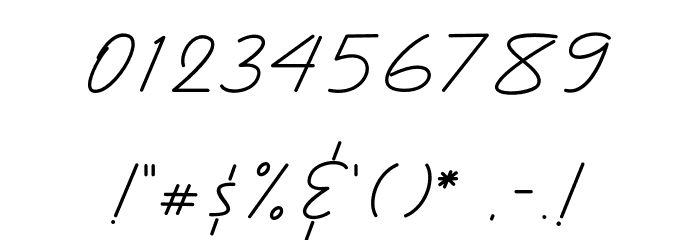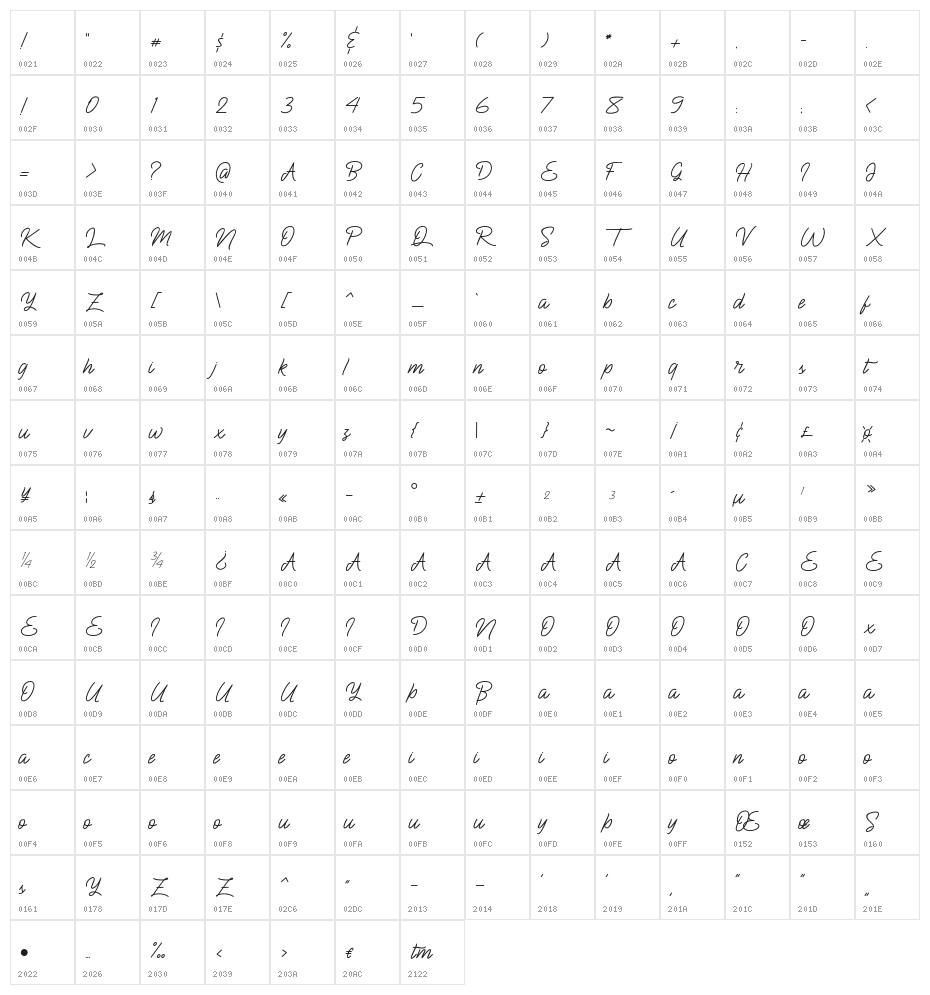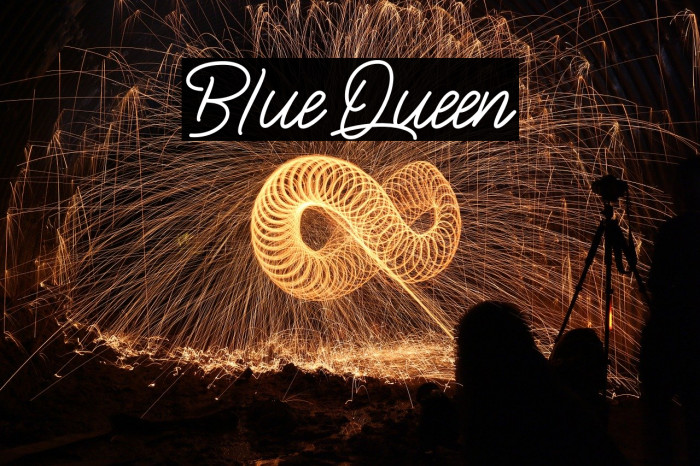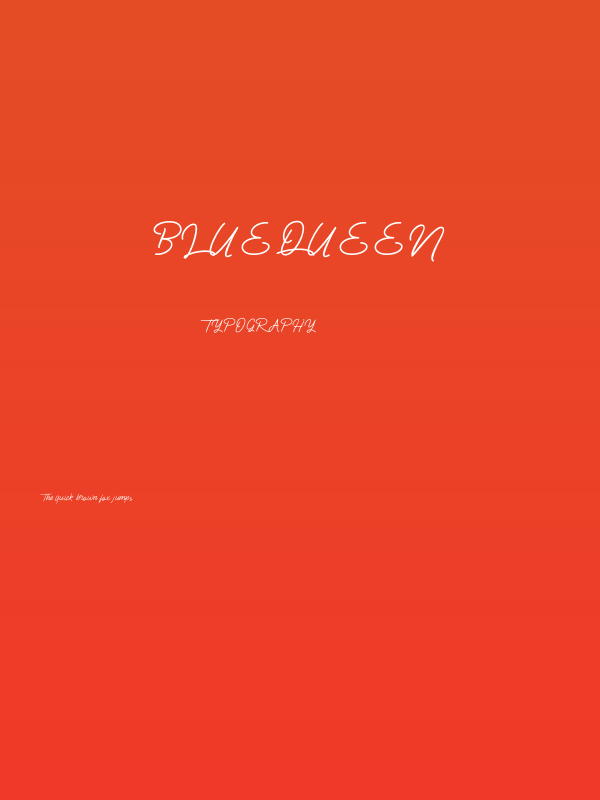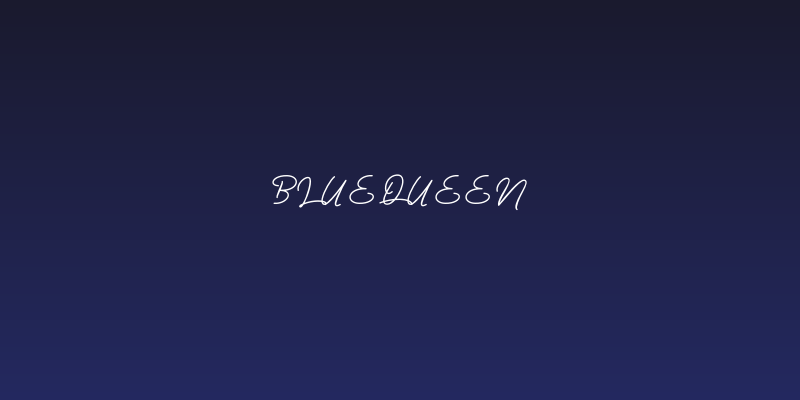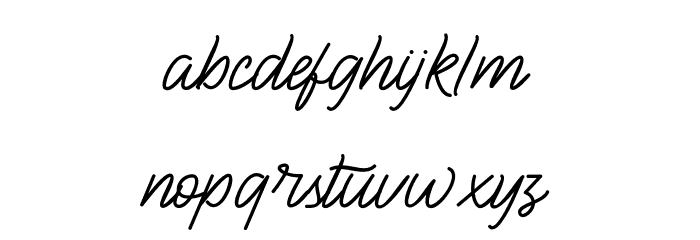
BlueQueen Font
This elegant script font features a flowing, cursive style with smooth, connected strokes that emulate the fluidity of handwriting. The uppercase letters are slightly more elaborate, with gentle curves and loops, while the lowercase letters maintain a consistent, graceful appearance. The numerals and special characters are designed to complement the overall script style, ensuring a cohesive look across all text elements. The font's delicate lines and balanced proportions make it suitable for projects that require a touch of sophistication and elegance.
| Proposed Projects | Ideal for wedding invitations, greeting cards, elegant branding, and personal stationery. |